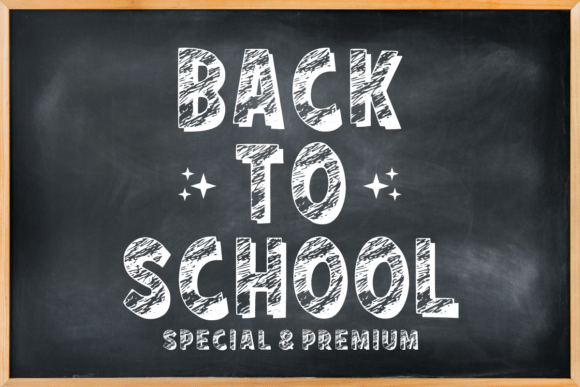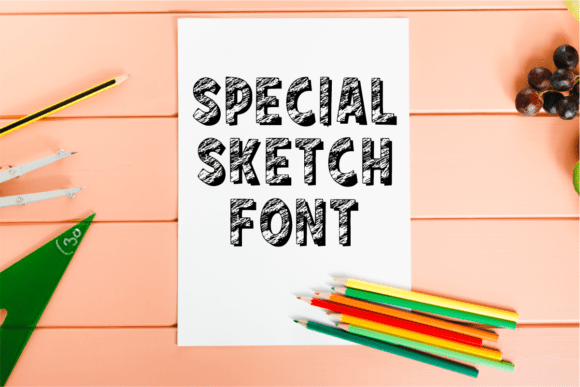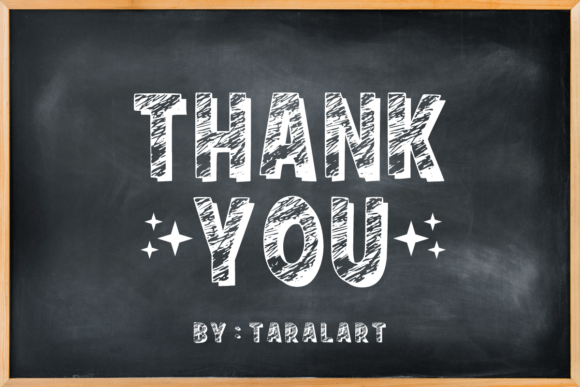
Introducing Chalk Scratches Font: The Ultimate Chalkboard-Inspired Typeface
Are you looking for a font that adds a touch of raw, unbridled energy to your designs? Look no further than the Chalk Scratches Font, a cool and modern chalk scribble font that’s perfect for creating bold, eye-catching graphics. This unique typeface consists of only uppercase letters, giving it a distinctive, attention-grabbing quality that’s sure to make your designs stand out.
The Inspiration Behind Chalk Scratches Font
The Chalk Scratches Font is inspired by the classic look of chalk on a blackboard. With its heavy strokes and scratchy edges, this font captures the raw texture and gritty feel of traditional chalkboard writing. The result is a rough and bold display font that’s perfect for creating posters, cafe menus, classroom decor, event flyers, and social media graphics that need to make a statement.
What Makes Chalk Scratches Font So Special?
The Chalk Scratches Font stands out from other typefaces due to its hand-drawn, textured look that mimics real chalk. This font is not a sterile, digital creation, but rather a lovingly crafted imitation of the real thing. The imperfections and irregularities of the chalk scratches add a touch of warmth and humanity to your designs, making them feel more approachable and engaging.
Perfect for Back-to-School Designs and More
The Chalk Scratches Font is a natural fit for back-to-school designs, teacher resources, and playful marketing materials. Its school-time vibe and chalkboard-inspired aesthetic make it perfect for creating fun and engaging graphics for educational settings. But this font’s versatility extends far beyond the classroom. It’s also great for:
- Cafe menus and restaurant signage
- Event flyers and posters
- Social media graphics and ads
- Playful marketing materials and branding
- Handmade crafts and DIY projects
Why Choose Chalk Scratches Font?
If you’re looking for a font that screams handmade, bold, and slightly messy, then the Chalk Scratches Font is the perfect choice. This font is ideal for designers and crafters who want to add a touch of personality and whimsy to their work. With its unique texture and gritty aesthetic, the Chalk Scratches Font is sure to:
- Add a touch of raw energy to your designs
- Make your graphics stand out from the crowd
- Convey a sense of playfulness and creativity
- Give your work a handmade, artisanal feel
Tips for Using Chalk Scratches Font
To get the most out of the Chalk Scratches Font, here are a few tips to keep in mind:
- Use it sparingly: Due to its bold and textured nature, the Chalk Scratches Font works best when used sparingly. Try using it for headings or titles, and pairing it with a simpler font for body text.
- Experiment with colors: The Chalk Scratches Font looks great in a variety of colors, but it’s especially effective in bold, bright hues that contrast with a dark background.
- Play with texture: The Chalk Scratches Font has a natural texture that can be enhanced by adding additional textures or backgrounds to your design.
The Chalk Scratches Font is a unique and versatile typeface that’s perfect for designers and crafters who want to add a touch of personality and whimsy to their work. With its hand-drawn, textured look and gritty aesthetic, this font is sure to make your designs stand out from the crowd. Whether you’re creating back-to-school designs, teacher resources, or playful marketing materials, the Chalk Scratches Font is a great choice. So why wait? Download the Chalk Scratches Font today and start creating bold, eye-catching graphics that scream handmade, bold, and slightly messy!